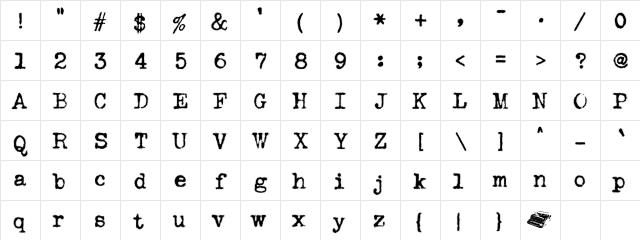
LD Remington Streamline Regular Font Preview
LD Remington Streamline Regular
Design Context for LD Remington Streamline Typeface
LD Remington Streamline takes a measured approach to typography — its balanced proportions and neutral character make it a reliable workhorse for both digital and print work.